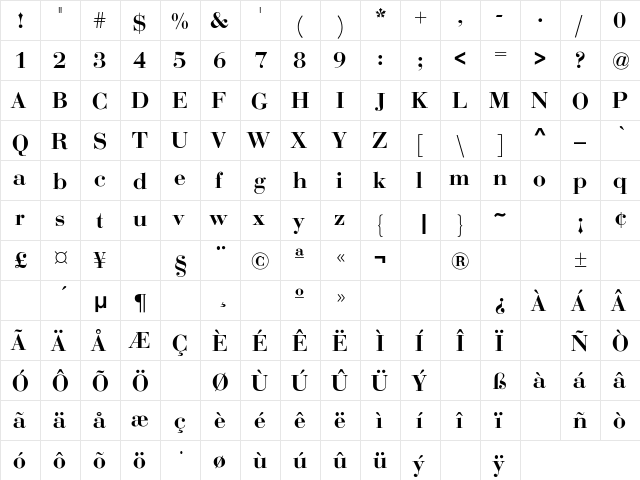
Rothni Regular
Design Context for Rothni Typeface
Rothni takes a measured approach to typography — its balanced proportions and neutral character make it a reliable workhorse for both digital and print work.